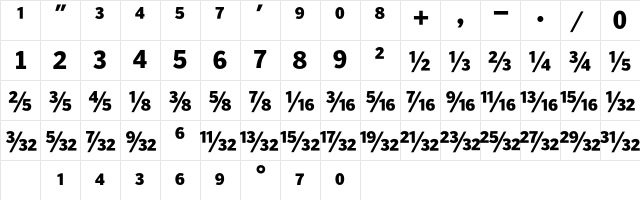
PoynterAgate BoldFrac Free Font
PoynterAgate BoldFrac
Style: BoldFrac
Complete PoynterAgate BoldFrac glyph index. Displaying only characters natively supported by PoynterAgate BoldFrac font.
Design Context for PoynterAgate
PoynterAgate is a composed and adaptable typeface that performs quietly and consistently across a wide range of design contexts. Its bold stroke weight gives it real presence on the page.